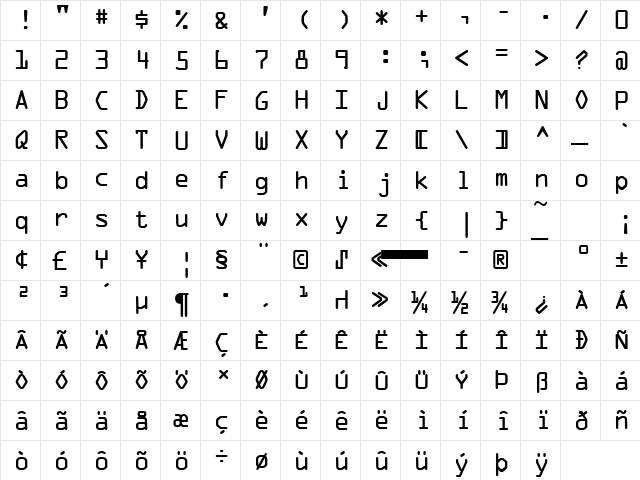
OCRAM Regular
Design Context for OCRAM Typeface
OCRAM takes a measured approach to typography — its balanced proportions and neutral character make it a reliable workhorse for both digital and print work.